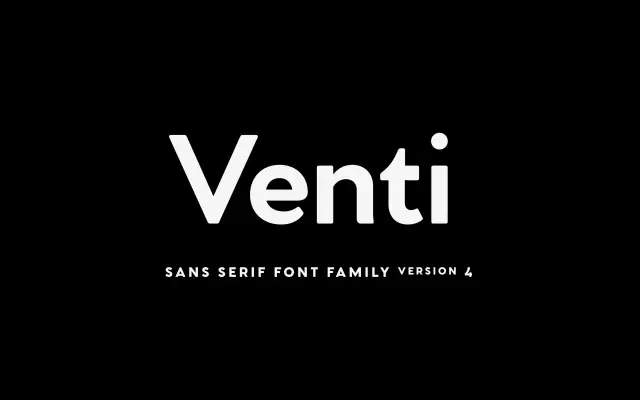
Venti
A geometric sans with soft humanist warmth across eight weights, covering Latin and Cyrillic for headlines, logos and short text.
Sixteen styles spanning eight weights from Thin to Black, each with a matching italic, give this geometric sans plenty of range for branding and editorial work. The foundry describes subtle human overtones that temper the geometry, making it feel approachable rather than clinical. Language support extends to over 30 scripts including Cyrillic, covering Belarusian, Bulgarian, Ukrainian and Serbian among others.
Described explicitly as a geometric font family, but with subtle humanist warmth in its letterforms, placing it firmly in the geometric sans category with soft humanist overtones.